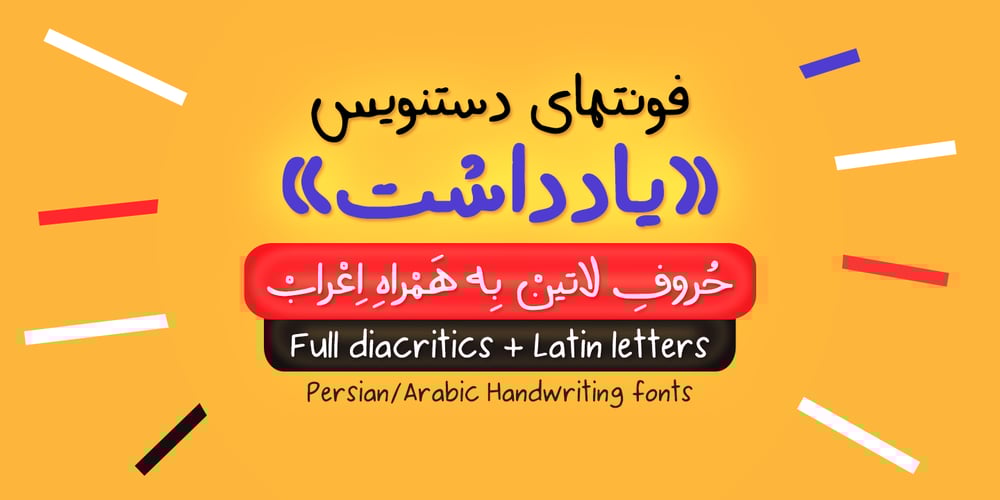
Yaddasht
Yaddasht font
Yaddasht Font Family was designed by Shahab Siavash and published by Si47ash Fonts. Yaddasht contains 2 styles and family package options. The most popular Persian / Arabic handwriting fonts! Yaddasht [means Note], is a child-like, fantasy and simple handwritten font which supports Persian, Arabic and basic Latin. This font which comes in 2 weights, brings a full diacritics set with it.Shahab Siavash, the designer has done more than 30 fonts and got featured on Behance, Microsoft, McGill University research website, Hackernoon, Fontself, FontsInUse,… Astaneh text and headline font which is one of his latest designs, already got professional typographers, lay-out and book designers’ attention as well as some of the most recognizable publications in Arabic/Persian communities.